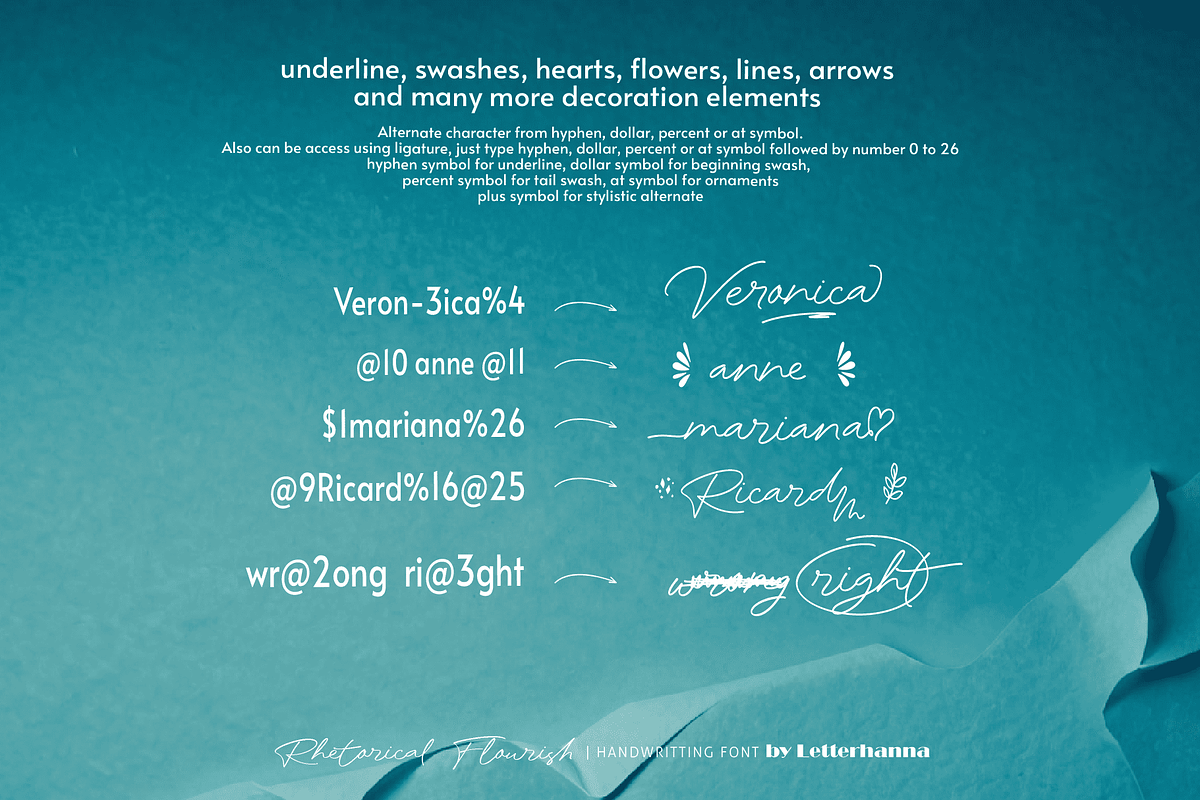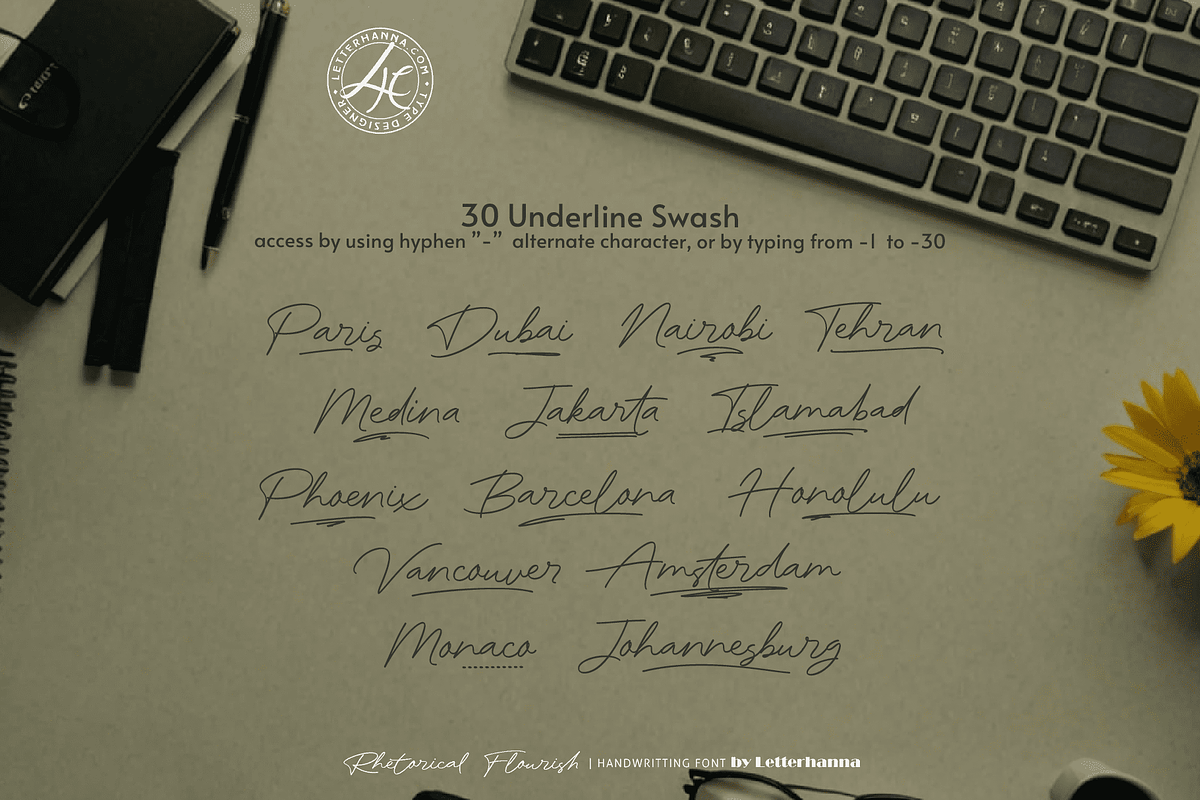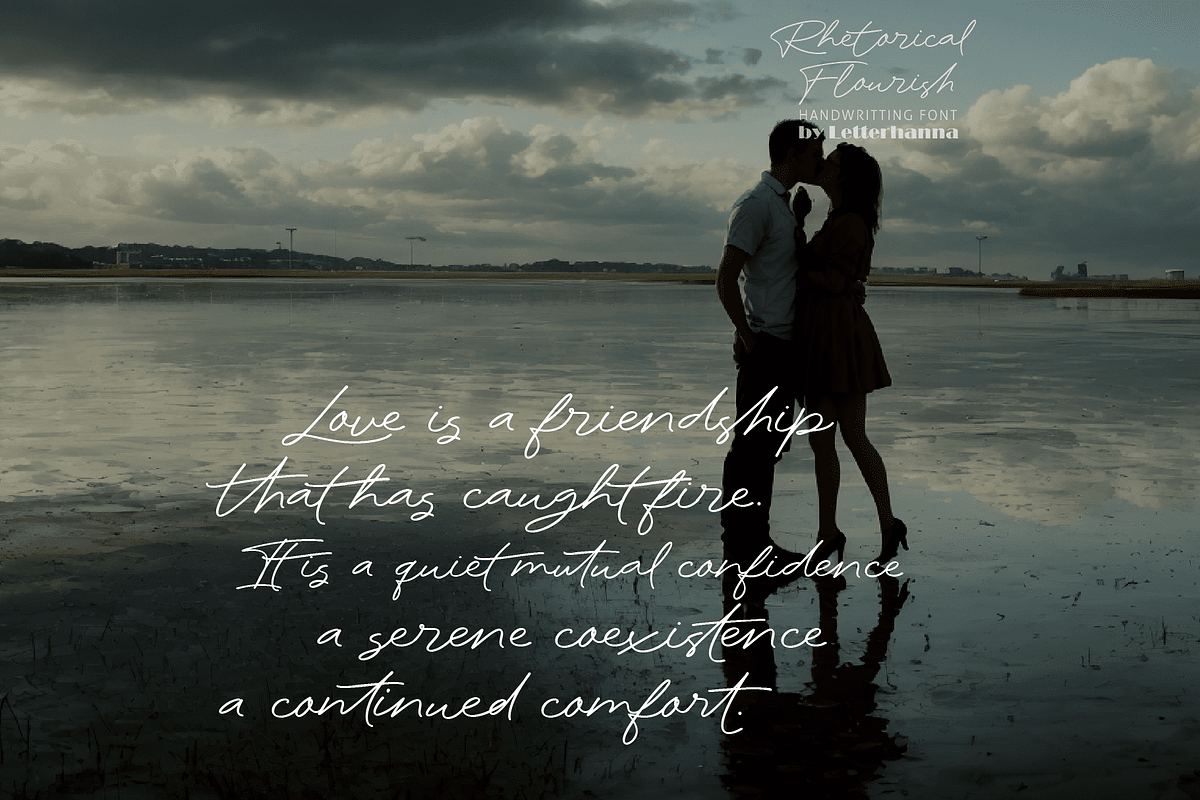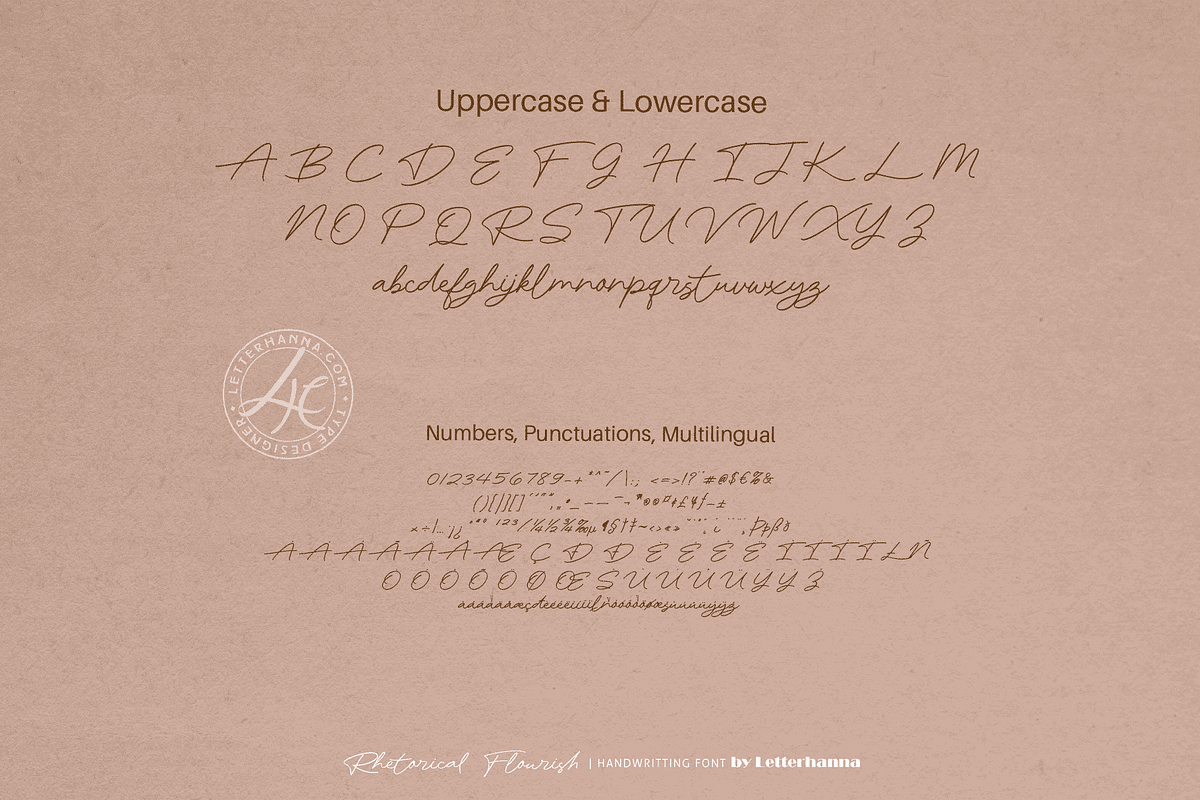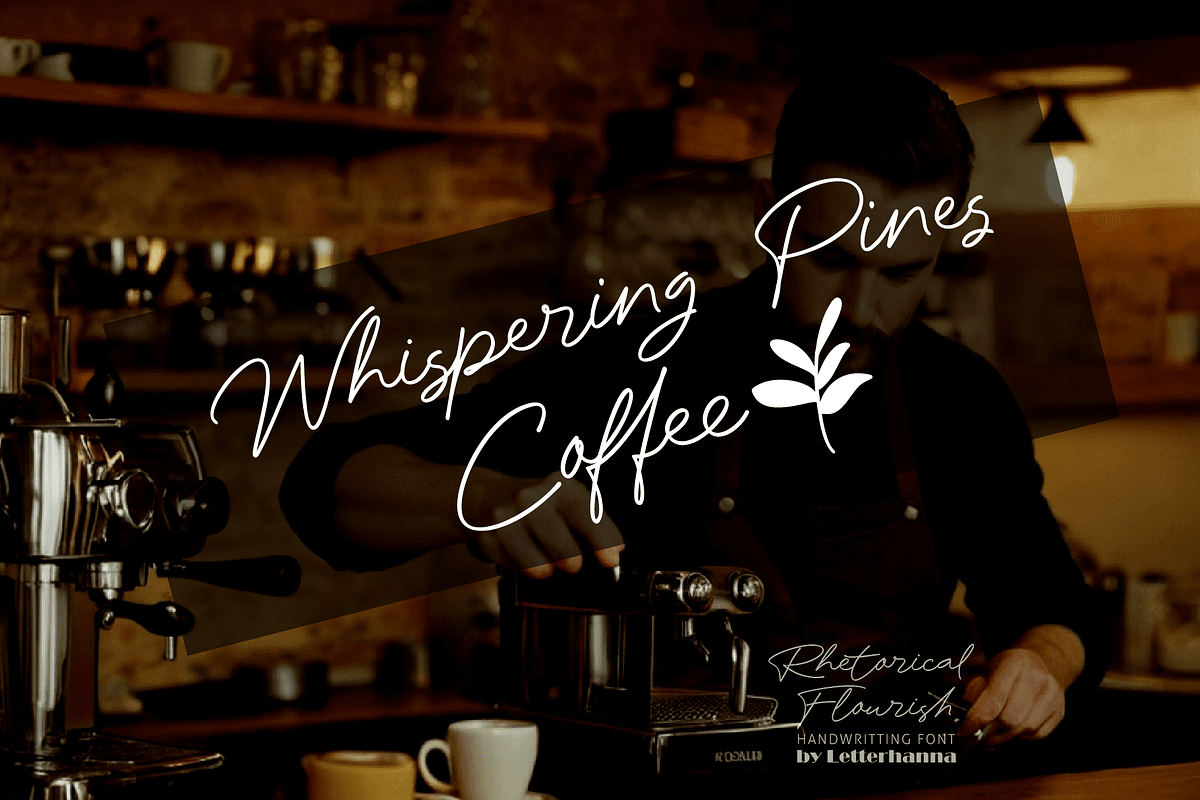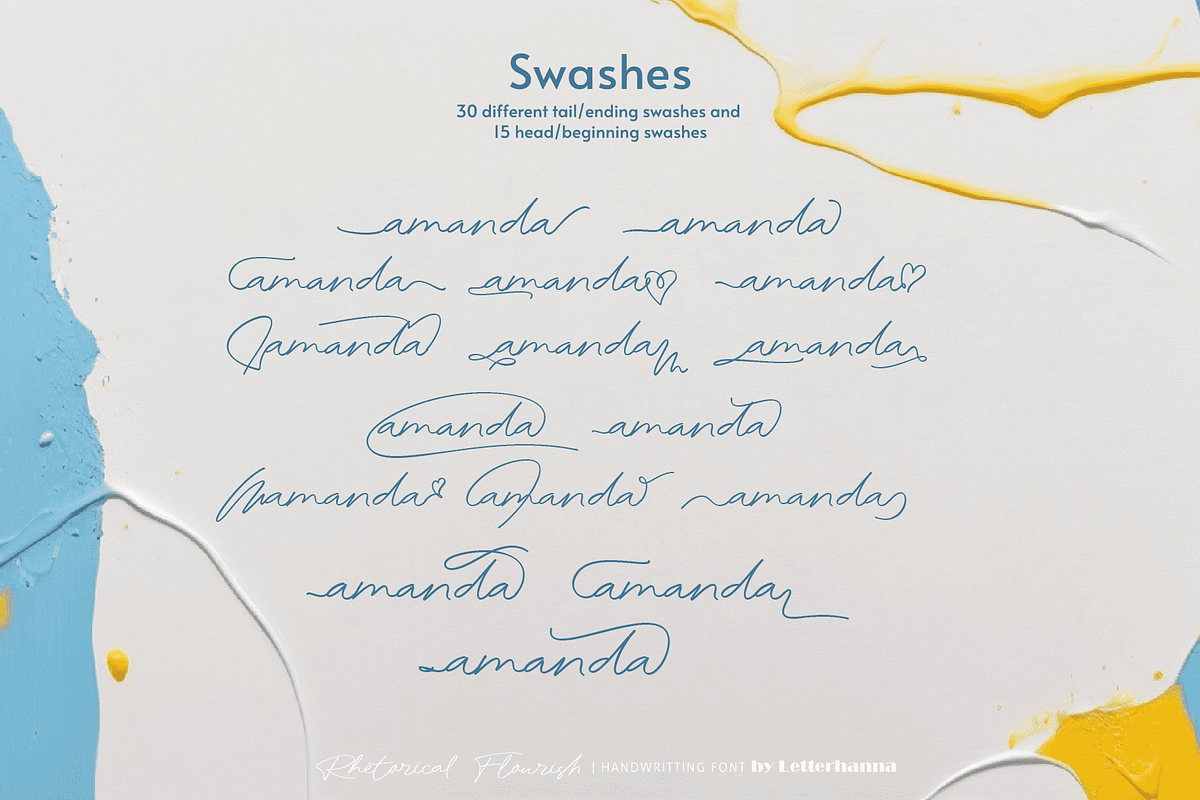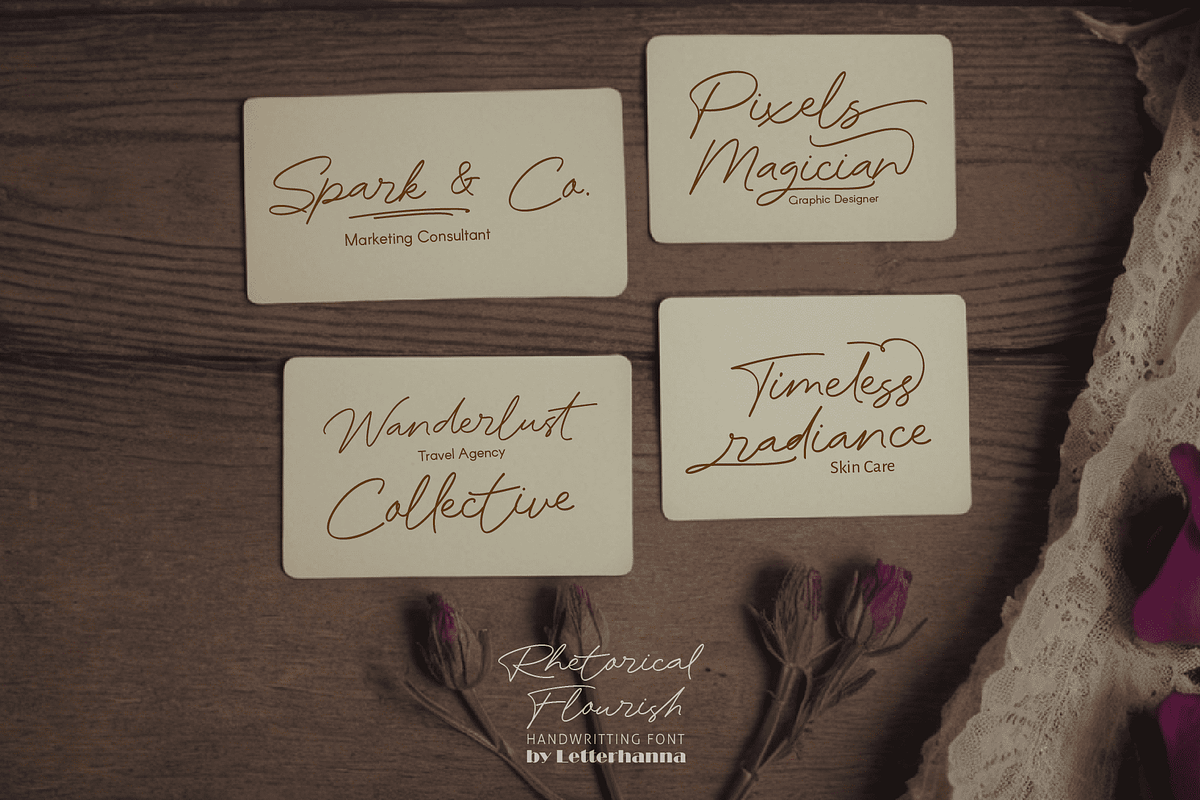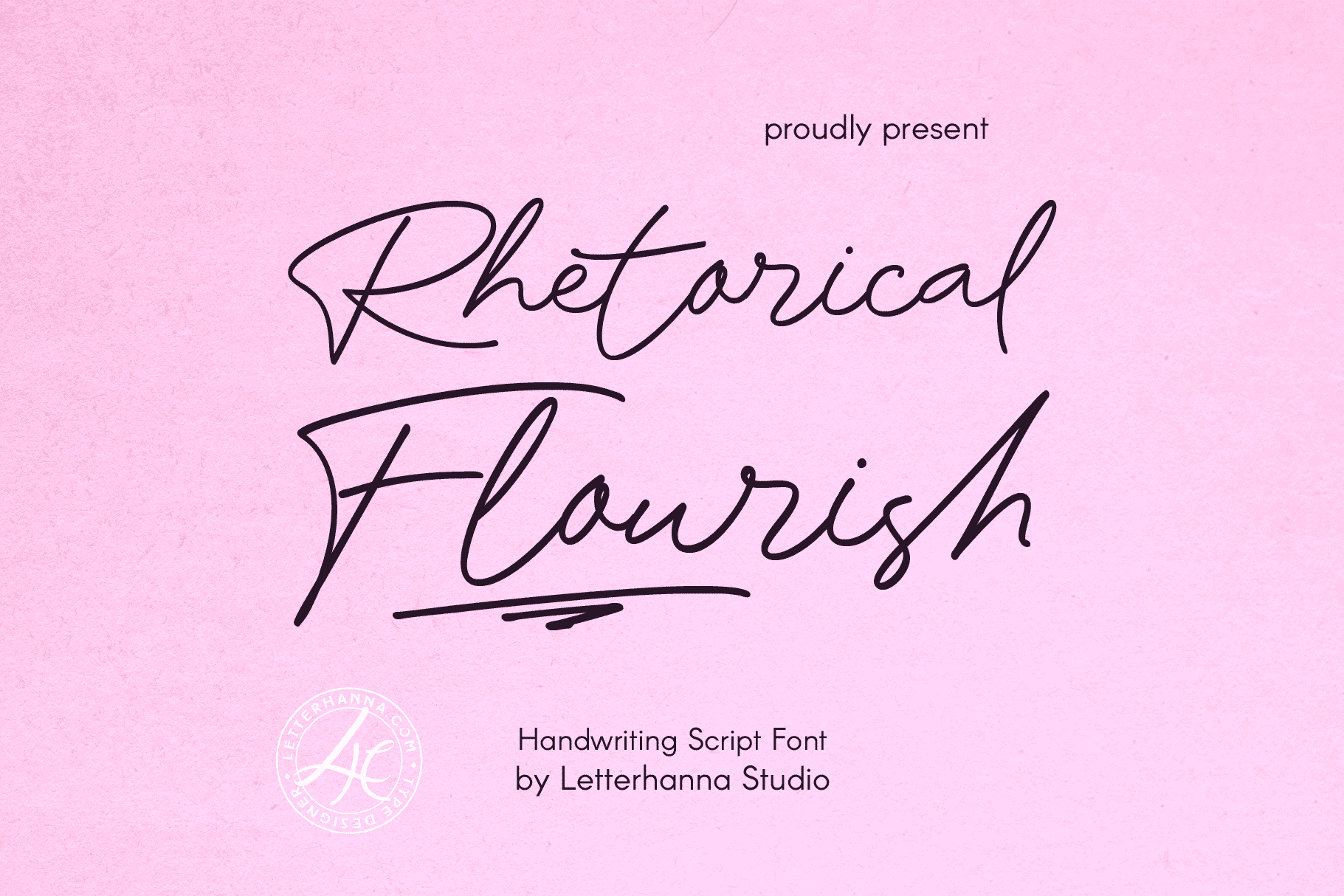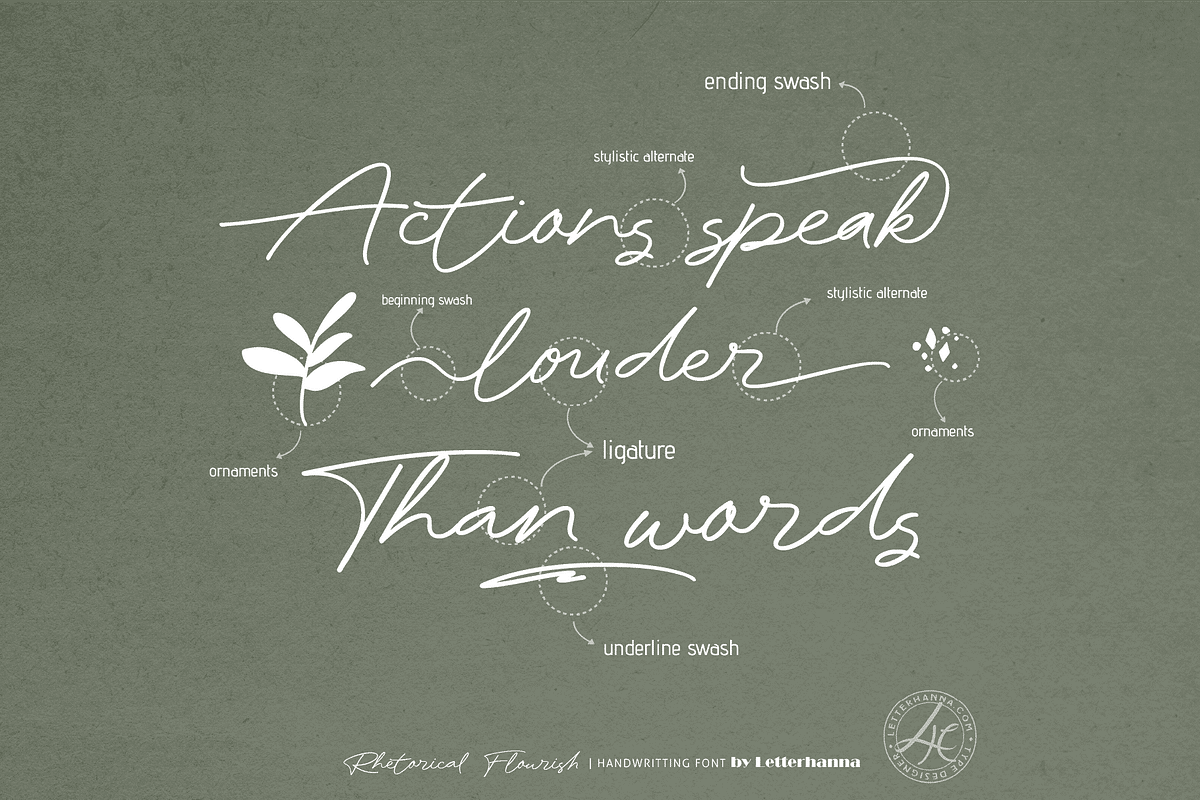
Rhetorical Flourish Font
Introducing Rhetorical Flourish: Elevate Your Text with Bold Expression
Unleash the power of persuasion and captivate your audience with Rhetorical Flourish, our newest typeface designed to add drama and impact to your written word. Rhetorical Flourish isn't just a font; it's a statement. Each letter boasts graceful curves and elegant flourishes, drawing the eye in and demanding attention.
Whether you're crafting a powerful presentation, a captivating social media post, or a timeless piece of marketing material, Rhetorical Flourish ensures your message leaves a lasting impression. Let your words flourish with this unique and expressive font.
Easy Access to Glyphs and Swashes
Accessing Stylistic Alternates
Stylistic alternates can be accessed by typing a plus symbol "+" in front of the original letter. For example, type "+a" to get the stylistic alternate of the letter a.
Accessing Swashes and Ornaments
Underline Swashes: Use a hyphen symbol "-" followed by a number between 1 and 30. For example, type "-3", "-22", or "-17" to get various underline swashes.
Head/Beginning Swashes: Use a dollar sign "$" followed by a number between 1 and 9. For example, type "$2" or "$8" to get different head/beginning swashes.
Tail/Ending Swashes: Use a percent sign "%" followed by a number between 1 and 30. For example, type "%3" or "%15" to get various tail/ending swashes.
Ornaments: Use an "at" symbol "@" followed by a number between 1 and 26. For example, type "@4" or "@13" to get different ornaments.
Uppercase and lowercase letters
Numbers and punctuation marks
Beginning and ending swashes
Underline swashes
Stylistic alternates
Ornaments
Easy access to swashes using ligatures